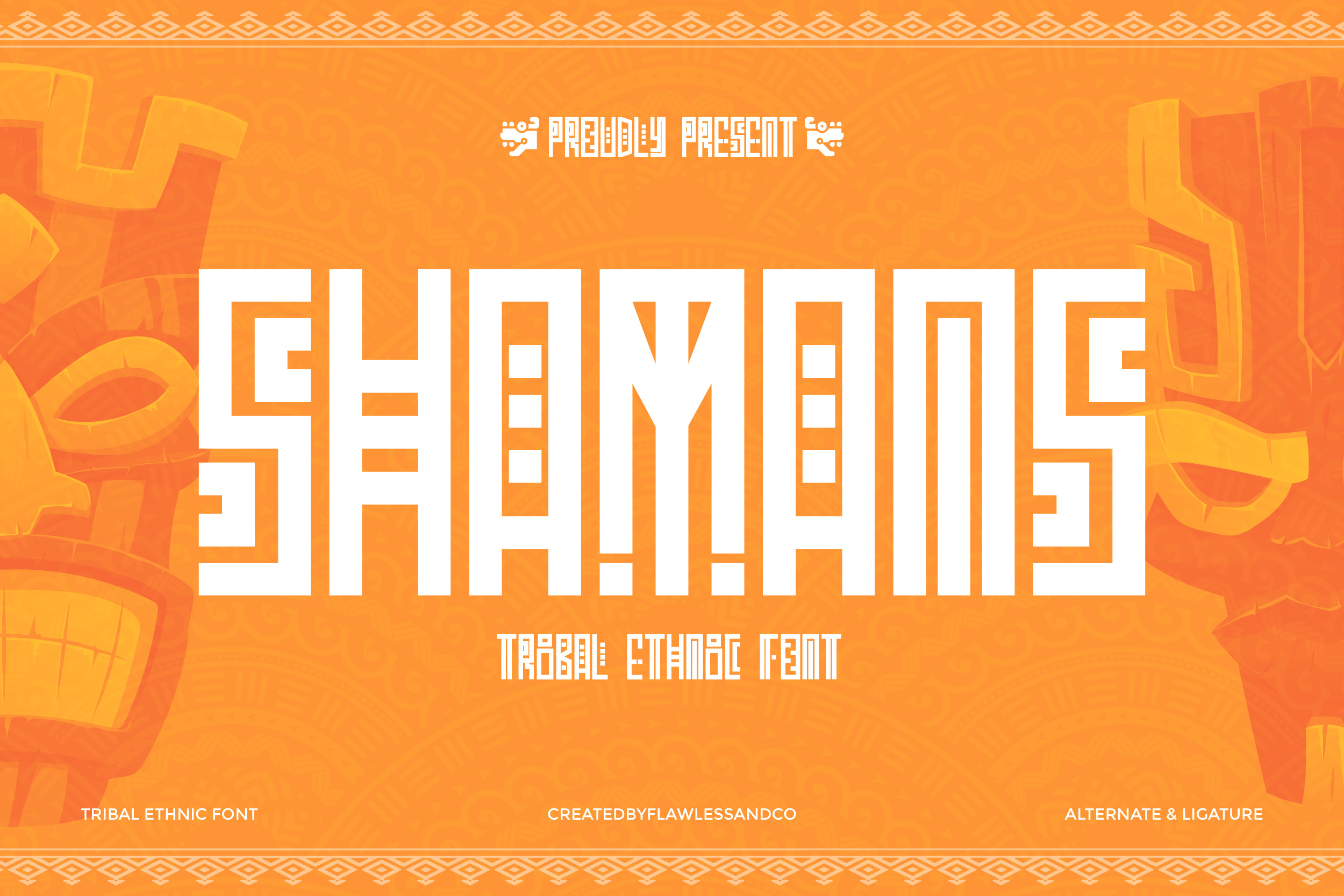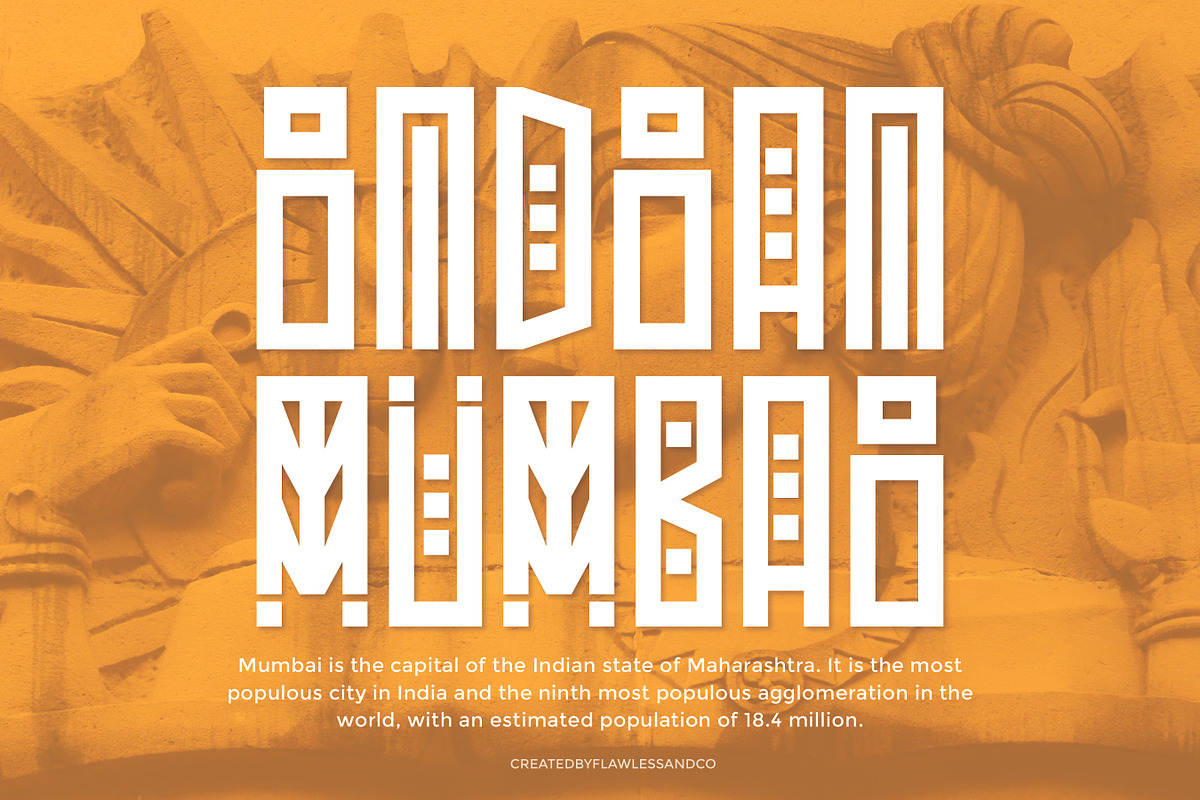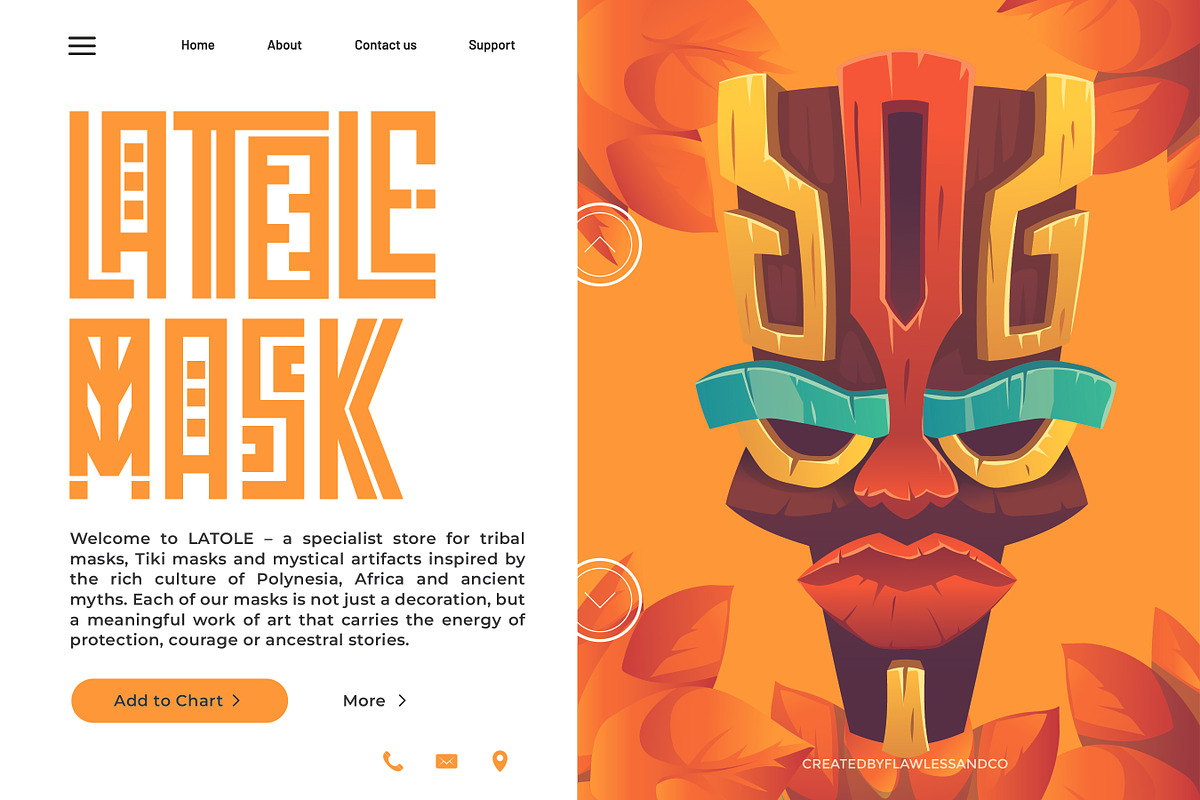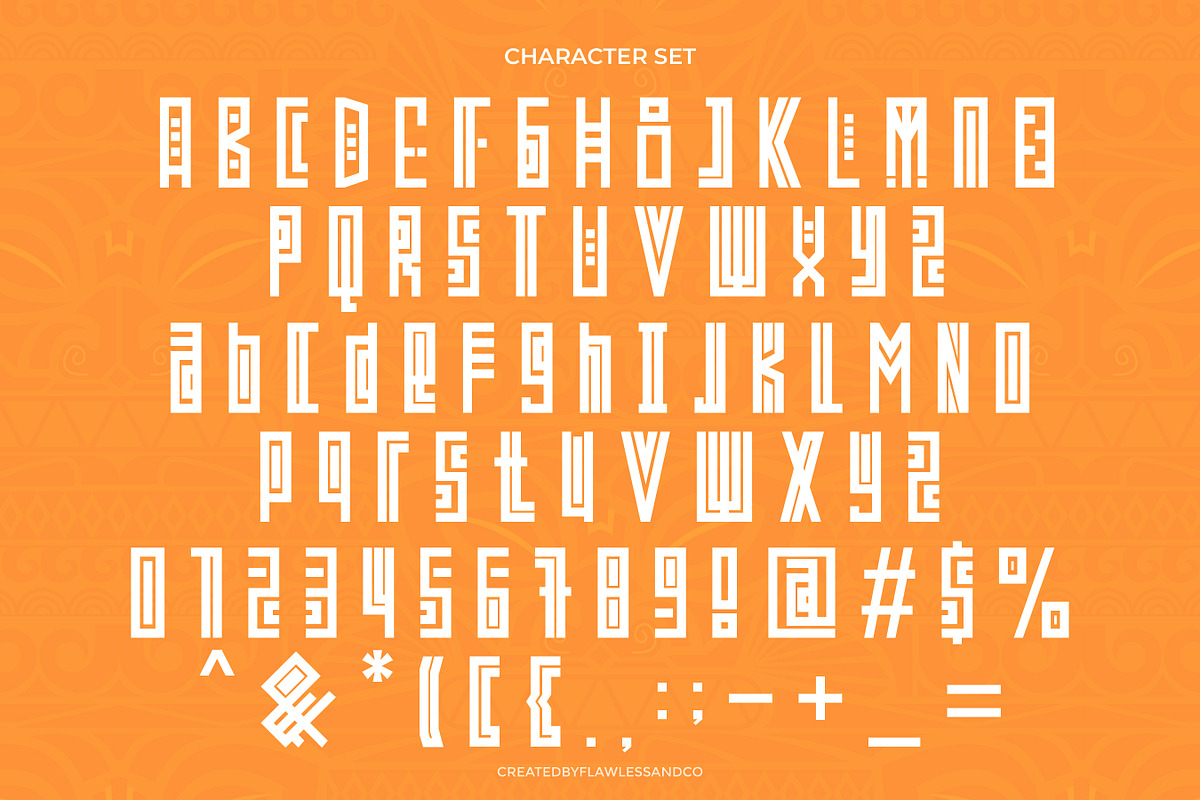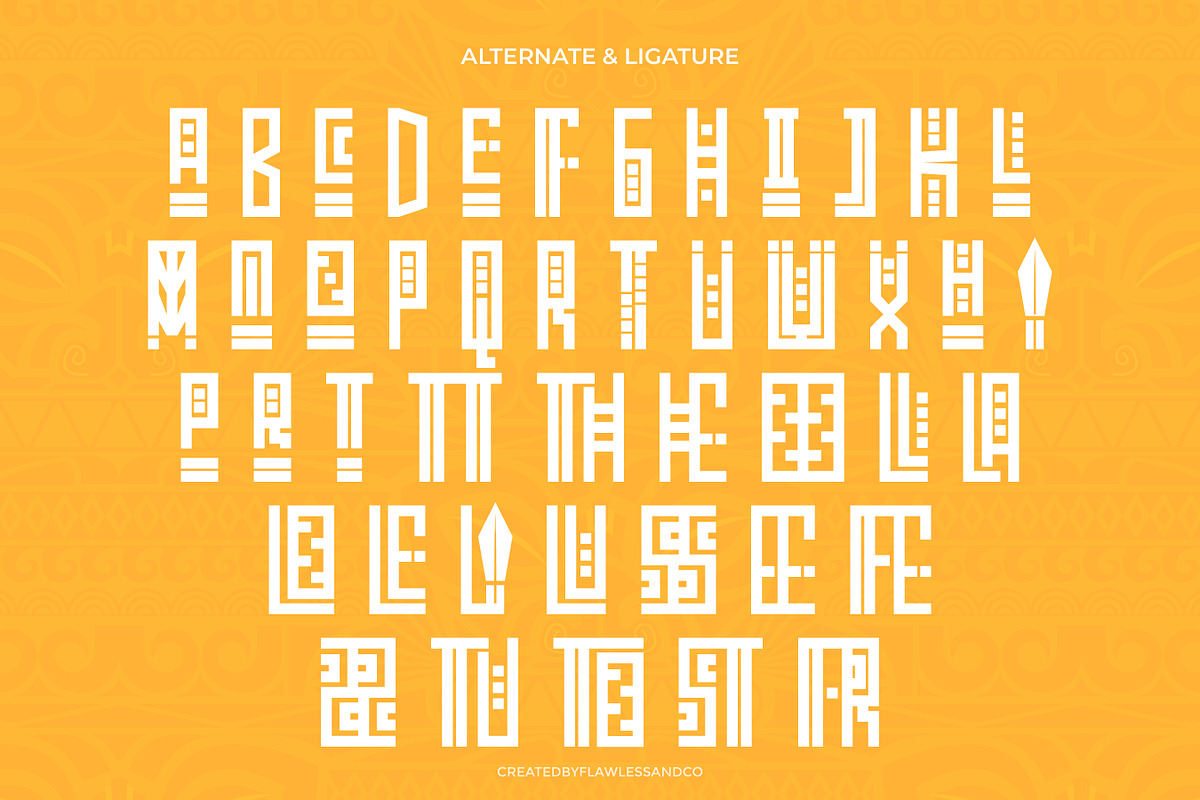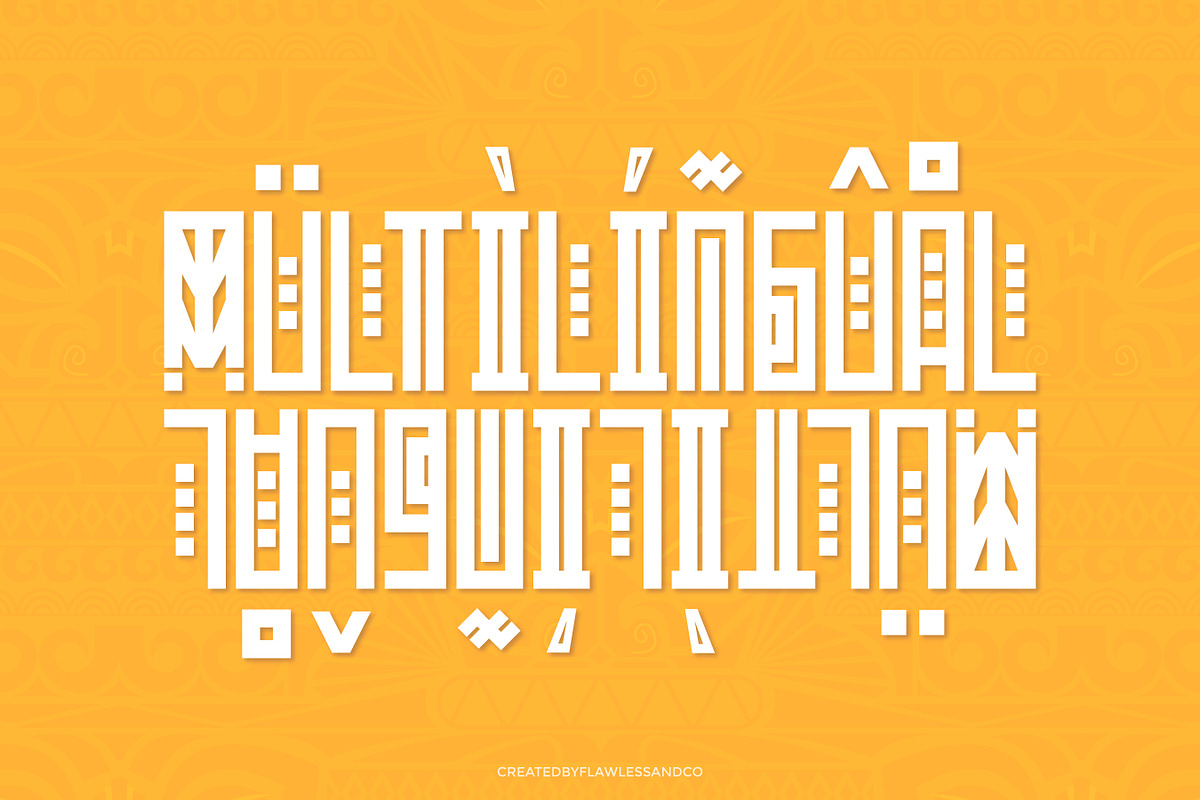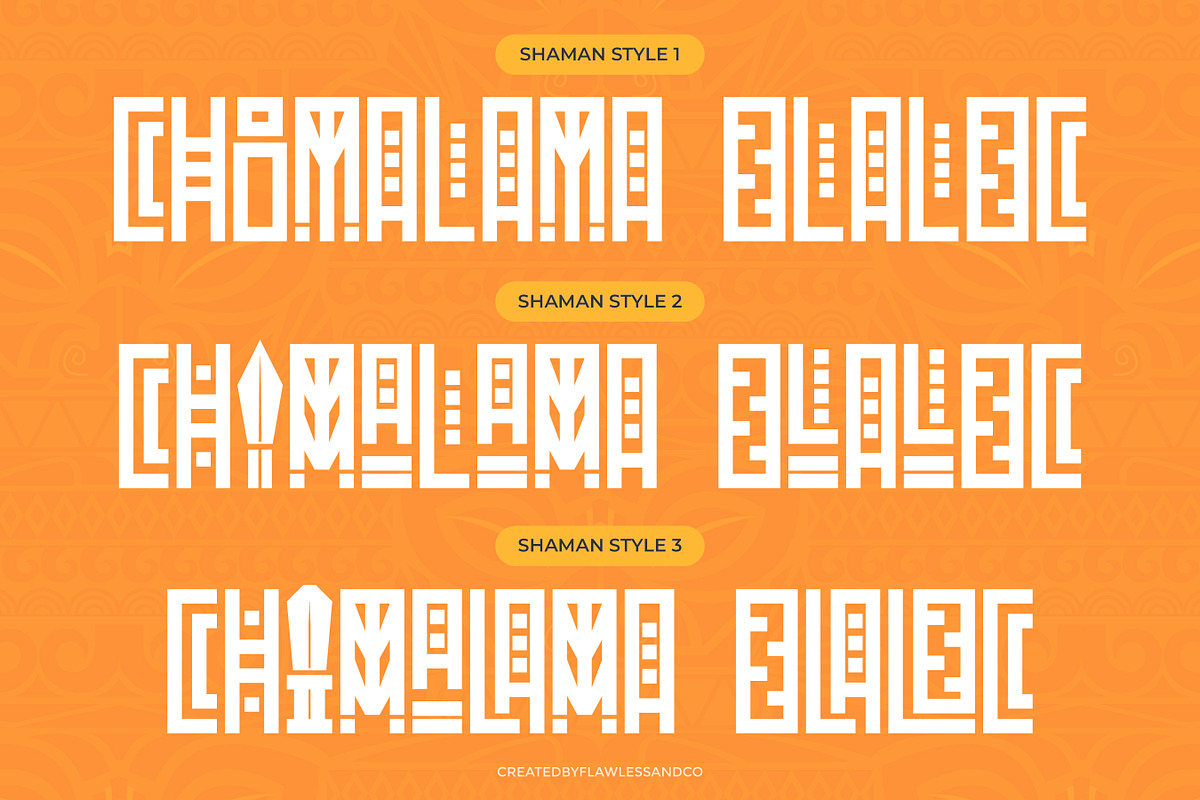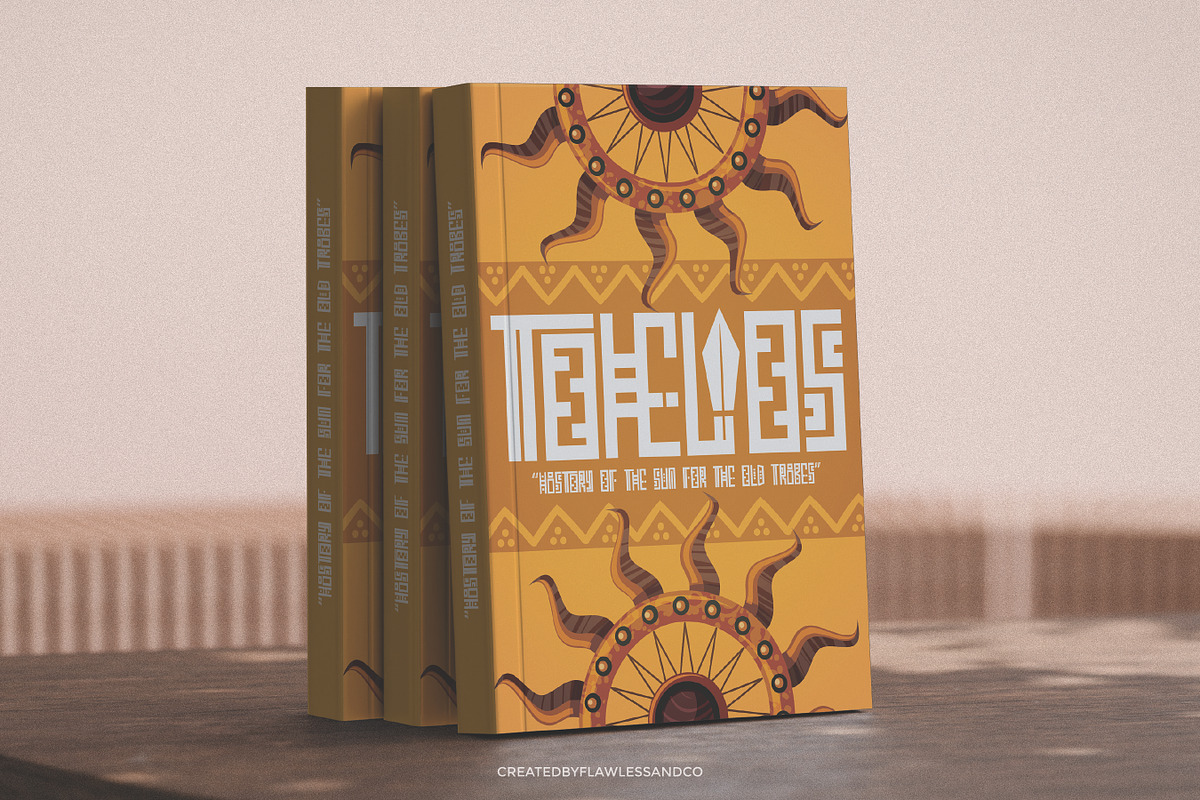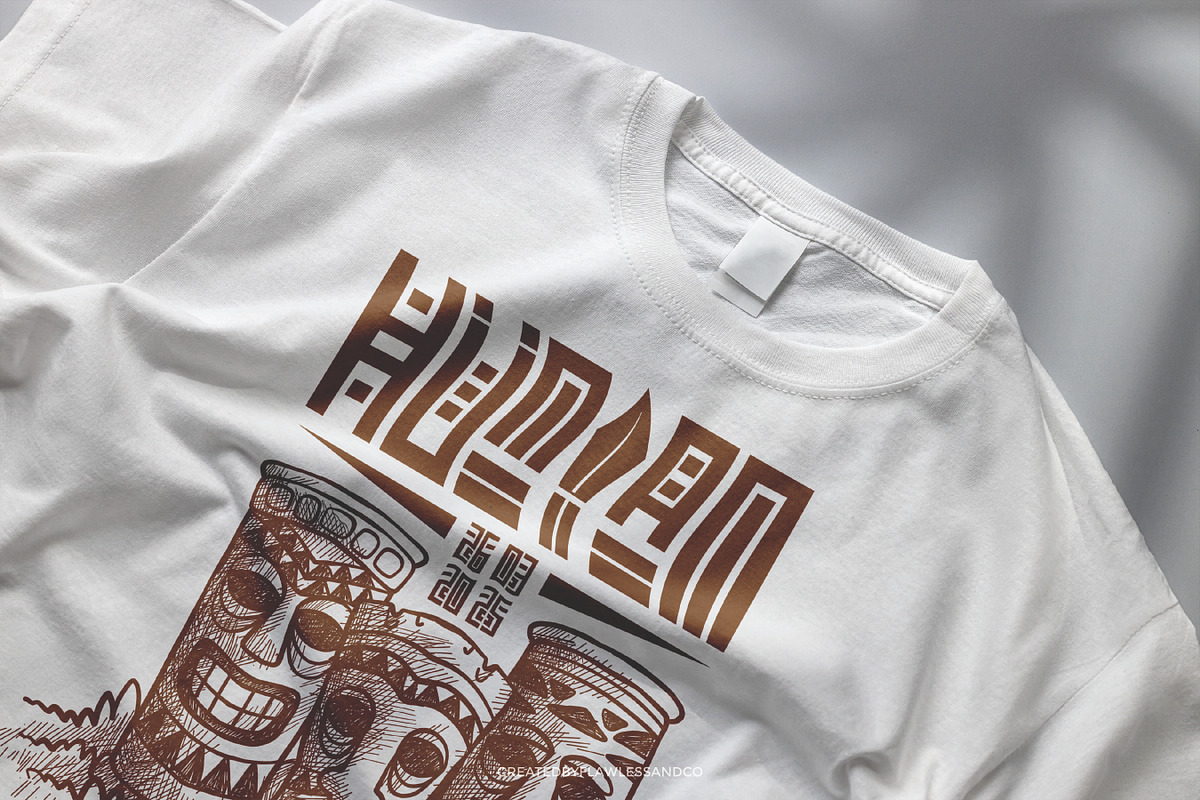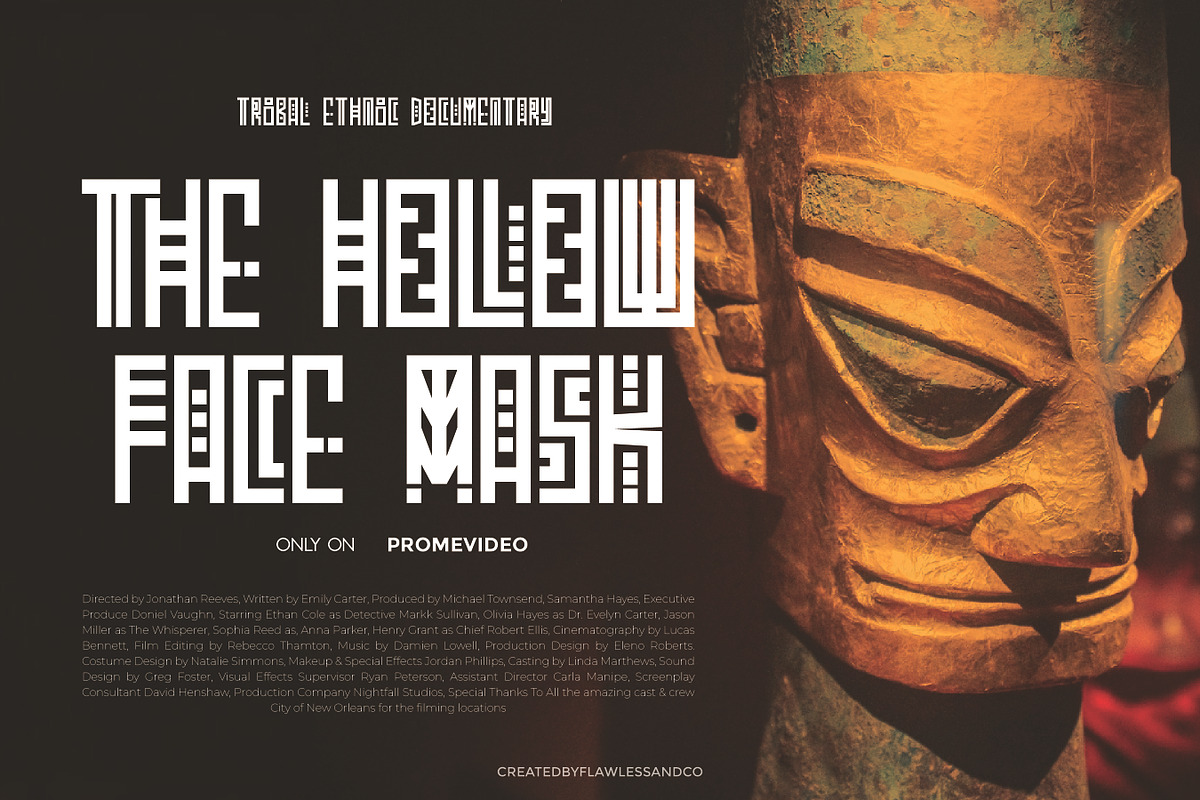
Shamans - Ethnic Decorative Font
SHAMANS – Tribal Ethnic Font
SHAMANS is an expressive tribal typeface that marries ancient cultural motifs with a modern aesthetic. Drawing its inspiration from traditional indigenous symbols and ritualistic ornamentations, SHAMANS boasts high-impact letterforms imbued with a sense of mystical heritage and contemporary flair. Perfect for design projects that demand a bold and memorable presence — from festival posters and cultural branding to album covers and bespoke art pieces — this typeface delivers both drama and authenticity. Each character in SHAMANS is meticulously crafted, balancing raw, primitive energy with refined artistic detailing. The font includes distinctive alternates and unique ligatures, providing creative flexibility to enrich your compositions with a variety of expressive styles and dynamic visual rhythms.
- Elegant Alternates & Custom Ligatures
- Multilingual Support.
Use SHAMANS to infuse your typography with the spirit of timeless tradition and bold, modern expression, and make a truly unforgettable visual impact.
Who Should Use SHAMANS
SHAMANS is made for creatives who want their work to stand out with bold, tribal-inspired energy. Ideal for:
- Brand designers creating logos or identities with cultural depth and a handcrafted touch
- Poster artists who need powerful, eye-catching headlines
- Album cover designers looking for spiritual, raw, or ethnic vibes
- Fashion labels exploring earthy, bohemian, or ceremonial aesthetics
- Event organizers promoting cultural, music, or tribal festivals
- Tattoo artists and illustrators seeking ornamental letterforms with ancient soul
If your project needs a voice that’s expressive, ancestral, and striking — SHAMANS delivers it with style.
A Must-Have Font for Cultural Creators and Visionary Designers
SHAMANS is more than just a typeface — it’s a bold cultural imprint. Designed for creators who dare to channel ancient spirit into modern visuals, this tribal ethnic font infuses every design with power, rhythm, and soul. Whether you're building a brand rooted in heritage, crafting a striking book cover, or designing cinematic visuals with tribal energy, SHAMANS brings depth, identity, and unmistakable character to your work. Its unique forms, symbolic accents, and expressive alternates make it an essential tool for those who seek design with meaning and visual strength.
Why Choose SHAMANS for Book, Brand Logo, and Movie Title Projects?
SHAMANS offers more than just unique letterforms — it brings a sense of story, culture, and symbolism to your design. For book covers, it sets the tone with tribal elegance and expressive character, instantly capturing attention and curiosity. In branding and logos, SHAMANS delivers a bold identity rooted in authenticity and handcrafted soul, perfect for products or businesses that want to stand out with depth and personality. And for movie titles, SHAMANS evokes cinematic impact, channeling mysticism, tradition, and drama — ideal for genres that explore culture, history, or fantasy. When you need your typography to speak louder, feel deeper, and leave a lasting impression, SHAMANS is the font that tells your story.